Are you always in the lookout for new shiny and trendy fonts?
I shall confess: I do that too. It’s my only one of my design sins. I absolutely love type. Give me some free time and I’ll be looking at font catalogs for hours.
But believe me –and I say this to myself too– you don’t really need that trendy new font to make exceptional designs.
Let me introduce you to Massimo Vignelli.
Massimo Vignelli was an Italian graphic, industrial and architecture designer. One of the most important designers of the 20th century. And he really made simplicity the ultimate ground for his work.
Does this map look familiar?
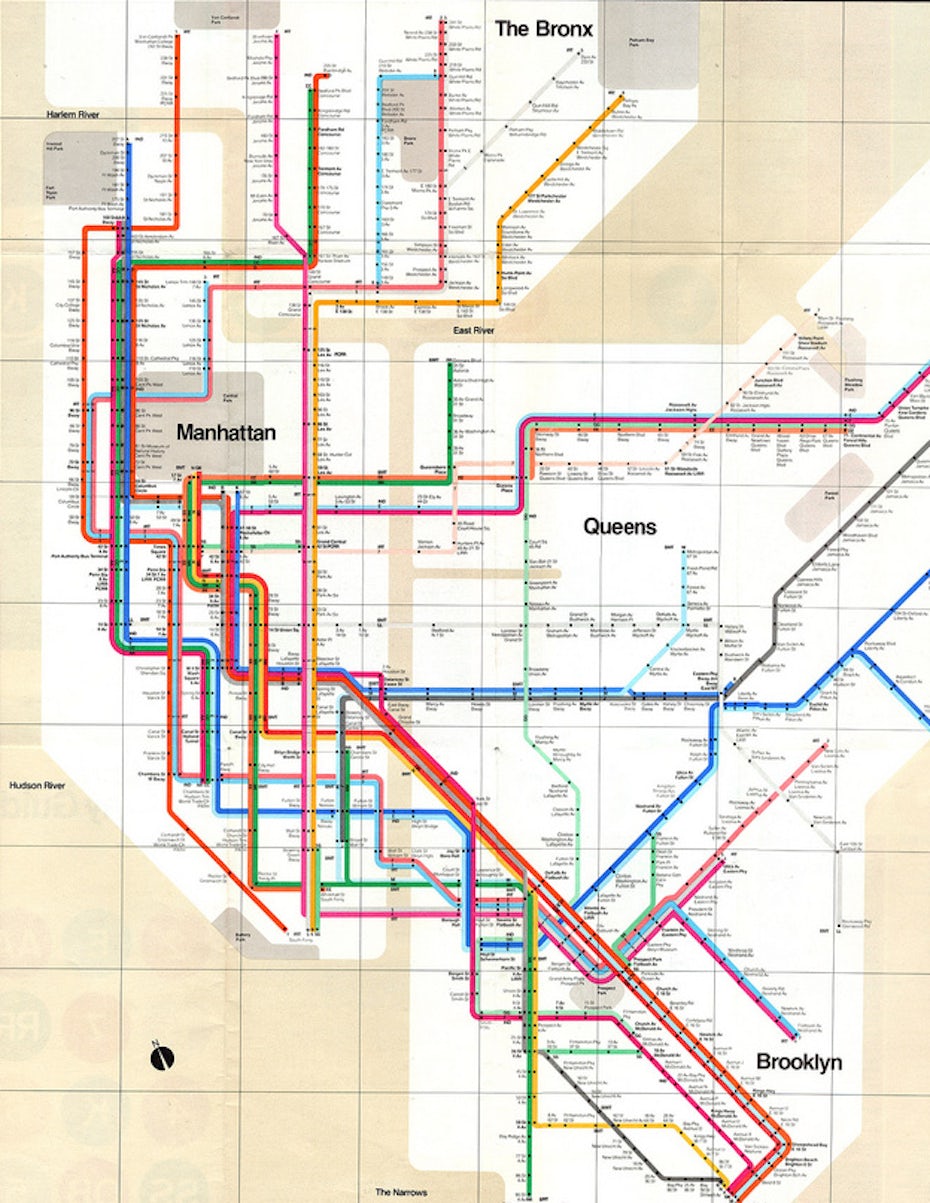
It’s the NYC subway map designed by Vignelli himself in 1972, which became an undisputed symbol of modern information design.
And how about this logo?
This is also Massimo Vignelli’s work. He designed it in 1967 and American Airlines used this same logo for 45 years.
Now, this guy -and please excuse my colloquialism- is also famous (and some times criticized) for sticking to just a few typefaces in everything he designed.
This is how I picture this…
Imagine you’re forced to move to a deserted island and you can only take with you 6 fonts (a normal everyday situation, amirite?).
That’s kind of what he did. Only a handful of fonts for everything.
And it went great for him, of course.
As Vignelli said in an interview:
“There are two main font families: serif (elzevirs) and sans-serif (grotesks). In both families there are some (few) great typefaces, the rest is commercial production. Among the serifs we have Garamond, Bodoni, Baskerville, Century Expanded, and Clarendon. Among the sans we have Futura, Gill Sans, Helvetica, Univers, and Optima. Sometimes it is possible to use a font with a weird look, but only to set a title or a logotype. There is no need to design a new font: What matters is the typographical structure, not the typeface!“
–Massimo Vignelli for designculture.it
[Ok, I had to google “elzevirs” myself – It’s a style of printing type with firm hairlines and stubby serifs, named after Lodewijk Elzevir, a Dutch printer born in 1540]
So…
I don’t think I can massimo-vignelli my font toolbox that much, it would be too hard and too limiting for me.
But after over a decade of working in graphic and web design –and in Vignelli’s spirit– here’s what I did:
I finally sat down and put together a list of the noblest and most professional serif and sans serif typefaces that I think you can find out there.
And that are more than enough to cover almost every kind of design project you may work on.
So, in no particular order, let me introduce you to my favorite serif and sans serif typefaces that I think are both timeless and beautiful.
My Top Serif Fonts
Playfair Display
Merriweather
Garamond
Freight
Lora
Libre Baskerville
Baskerville
Recoleta
Didot
Abril Display
Cormorant Garamond
Prata
IBM Plex Serif
Big Caslon
Miller
Spectral
Source Serif Pro
Bodoni
My Top Sans Serif Fonts
Acumin Pro
Neue Haas Unica
Proxima Nova
Avenir Next
Nunito Sans
Lato
HK Grotesk
Karla
Work Sans
Montserrat
Open Sans
Roboto
Poppins
Futura
Helvetica Neue
Gotham
Aktiv Grotesk
Barlow
Nexa
TT Commons
Archivo
Bebas Neue
Cooper Hewitt
Geomanist
Franklin Gothic
The bottom line:
I’m so happy I put together this list. It’s like when…
Ok, I don’t think I can come up with an analogy. But I know I sleep better knowing there’s a list I can come to when I need to pick a safe, noble font.